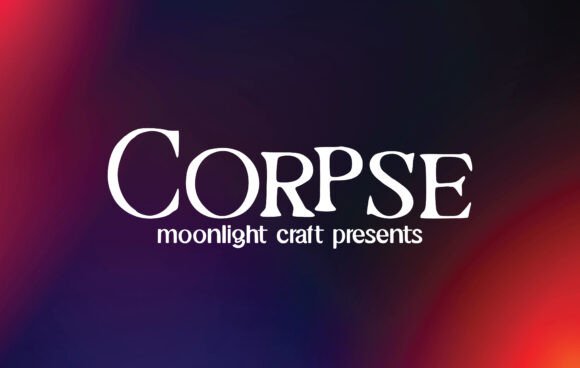
Introducing Corpse Font: The Ultimate Addition to Your Typography Collection
In the world of typography, fonts play a crucial role in conveying messages, expressing emotions, and creating visual identities. With the vast array of fonts available, it can be challenging to find the perfect one that suits your creative project. However, if you’re looking for a font that seamlessly blends style and versatility, look no further than Corpse Font. In this article, we’ll explore the features and benefits of Corpse Font, and why it’s poised to become a go-to favorite in your typography collection.
A Font Crafted for Creativity
Corpse Font is meticulously crafted to cater to the diverse needs of creative professionals. Its design focuses on delivering a perfect balance of aesthetics and readability, making it an ideal choice for a wide range of applications. Whether you’re working on magazine headlines, t-shirts, social media posts, branding materials, wedding invitations, or greeting cards, Corpse Font is designed to elevate your project with its unique charm.
Readability and Versatility
One of the standout features of Corpse Font is its exceptional readability. In today’s fast-paced digital landscape, fonts that are easy to read are highly sought after. Corpse Font meets this criterion with flying colors, ensuring that your message is conveyed clearly and effectively. Its clean lines and well-balanced design make it perfect for both titles and body text, providing a consistent visual flow that enhances the overall reading experience.
Versatility is another key attribute of Corpse Font. This font is not limited to a specific style or medium; instead, it adapts effortlessly to various creative projects. For instance, it can add a touch of elegance to wedding invitations and greeting cards, while also bringing a modern and trendy vibe to social media posts and t-shirts. The adaptability of Corpse Font makes it a valuable asset in your typography arsenal.
Applications of Corpse Font
The applications of Corpse Font are vast and varied. Here are some examples of how this font can be effectively utilized:
- Magazine Headlines: Corpse Font can add a bold and eye-catching touch to magazine headlines, drawing readers in with its stylish appeal.
- T-Shirts: The font’s modern design makes it perfect for t-shirt designs, allowing for both comfort and style.
- Social Media Posts: Corpse Font can help your social media posts stand out, adding a professional and polished look to your content.
- Branding Materials: For businesses looking to create a strong visual identity, Corpse Font offers a sophisticated and contemporary solution.
- Wedding Invitations and Greeting Cards: The font’s elegant and refined appearance makes it suitable for special occasions, adding a touch of class to your stationery.
Why Choose Corpse Font?
With so many fonts available, why should Corpse Font be your top choice? Here are a few compelling reasons:
- Unique Style: Corpse Font boasts a distinctive style that sets it apart from more generic fonts. Its unique charm can help your project stand out in a crowded creative landscape.
- High Readability: The font’s focus on readability ensures that your message is communicated clearly, making it suitable for both titles and body text.
- Versatility: Corpse Font’s adaptability to various creative projects makes it a valuable addition to your typography collection.
- Ease of Use: Designed with the user in mind, Corpse Font is easy to integrate into your projects, saving you time and effort.
Tips for Using Corpse Font Effectively
To maximize the potential of Corpse Font, consider the following tips:
- Pair with Complementary Fonts: Experiment with pairing Corpse Font with other fonts to create visual interest and hierarchy in your designs.
- Adjust Font Sizes: Play with different font sizes to emphasize key points and create a dynamic visual flow.
- Utilize Font Variations: If available, use different variations of Corpse Font (such as bold, italic, or light) to add depth and nuance to your designs.
- Consider Color Schemes: Choose color schemes that complement the tone and style of Corpse Font, ensuring a cohesive visual identity.
Corpse Font is a versatile and stylish addition to any typography collection. Its unique blend of readability and aesthetics makes it an ideal choice for a wide range of creative projects. Whether you’re designing magazine headlines, t-shirts, social media posts, or branding materials, Corpse Font offers the perfect combination of style and functionality. By incorporating Corpse Font into your projects, you can elevate your designs and create a lasting impression on your audience.
Corpse Font in the Context of Modern Design
In the context of modern design, Corpse Font represents a shift towards fonts that are both stylish and functional. Its design reflects a broader trend towards typography that prioritizes readability, versatility, and aesthetics. By choosing Corpse Font, designers can stay ahead of the curve, creating projects that are not only visually appealing but also highly effective in communicating their message.